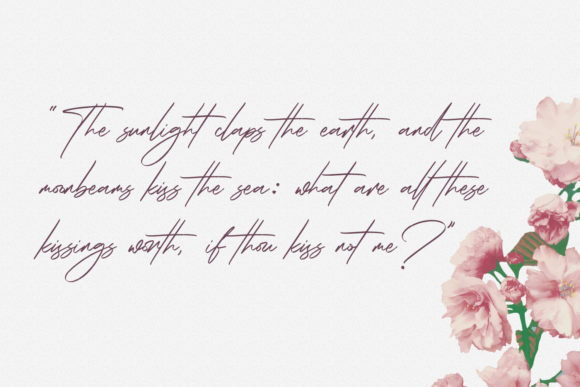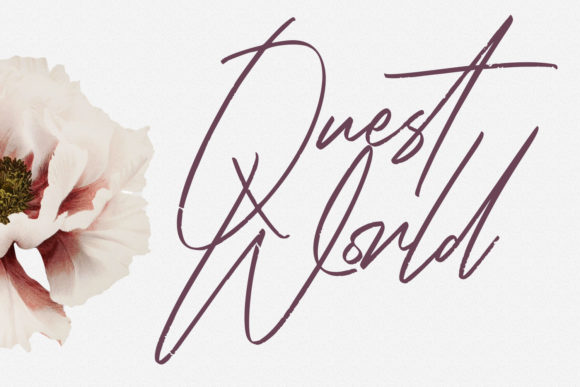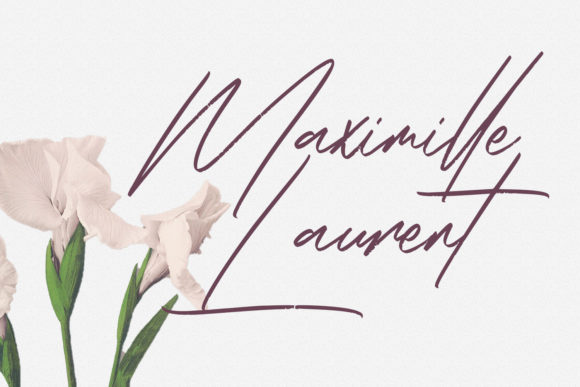
Introduction to Rose Couture Font
Meet the Rose Couture Font, a stunning slanted and modern expressive signature script font that’s about to become your new best friend. With its unique blend of rough brush contrast strokes, fun characters, ligatures, and alternates, this font is a game-changer for designers looking to add a touch of elegance and sophistication to their designs.
Key Features of Rose Couture Font
- High-quality design resource for creative projects, offering a luxurious and elegant touch.
- Comes in a single font style with multiple weights, providing versatility for designers to create a range of visual effects.
Honest Review: Rose Couture Font
As a designer, I’m always on the lookout for high-quality fonts that can elevate my creative projects. The Rose Couture Font has been a recent addition to my design resource library, and I must say, it’s a lovely find.
Here’s what I love about this font:
- ✨ Elegant and feminine design that’s perfect for wedding invitations, bridal showers, and other feminine-themed projects
However, I do have a few limitations to note:
- ⚠️ Limited character set, which might be a problem for projects that require extensive text
- ⚠️ Not ideal for bold or heavy typography, as it can look a bit delicate
Overall, I’m impressed with the Rose Couture Font’s design and quality. It’s a great addition to any designer’s library, especially for projects that require a touch of elegance and sophistication. With a little creativity, I’m confident that this font can help designers create stunning designs that wow their clients.
Tips for Getting the Most Out of Rose Couture Font
Use the Rose Couture Font with a transparent background to create a clean and elegant design. Experiment with different font sizes and styles to add visual interest to your creative project.
The Rose Couture Font is perfect for:
- Branding and logos
- Editorial and fashion designs